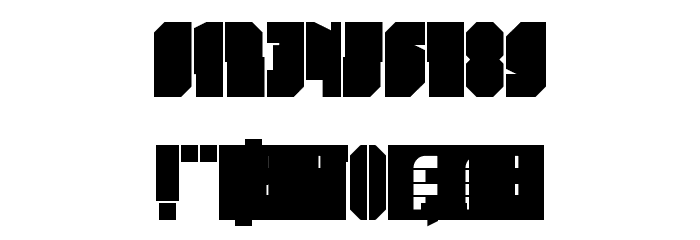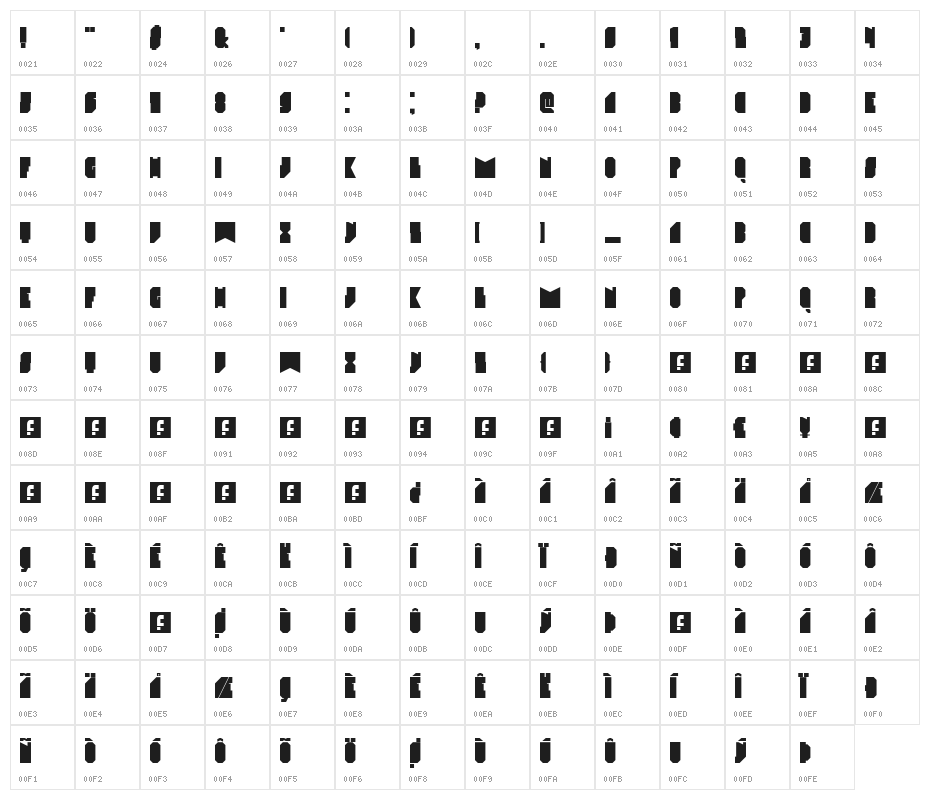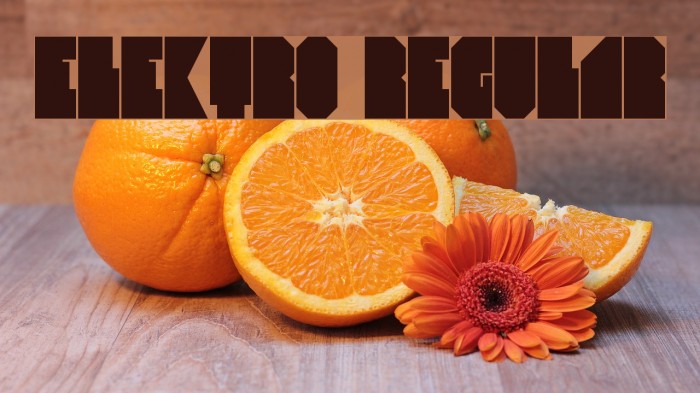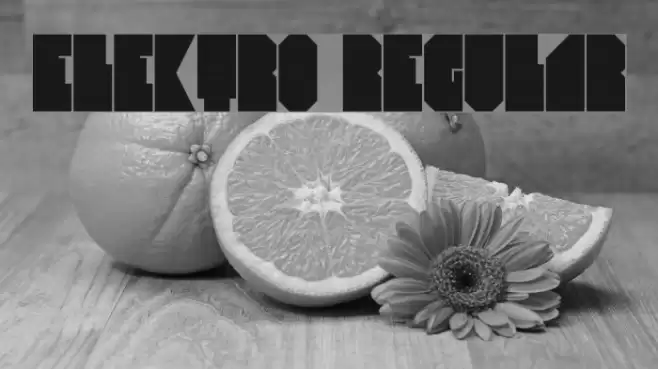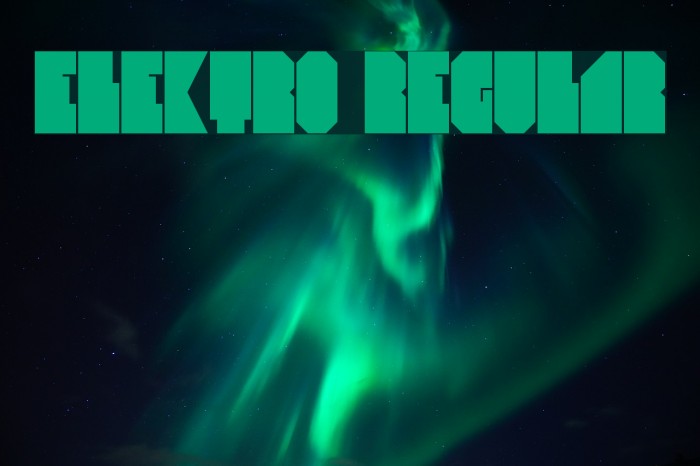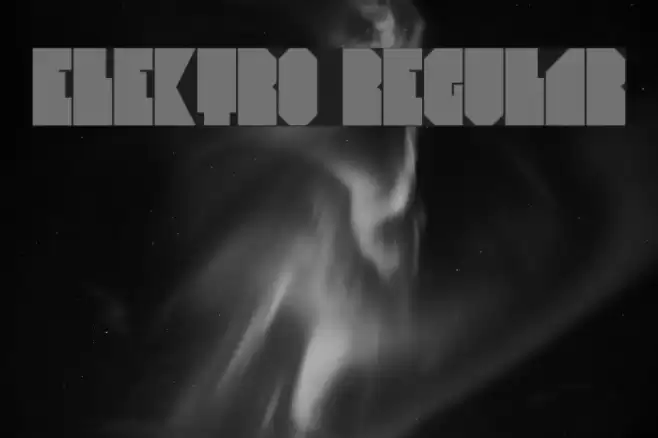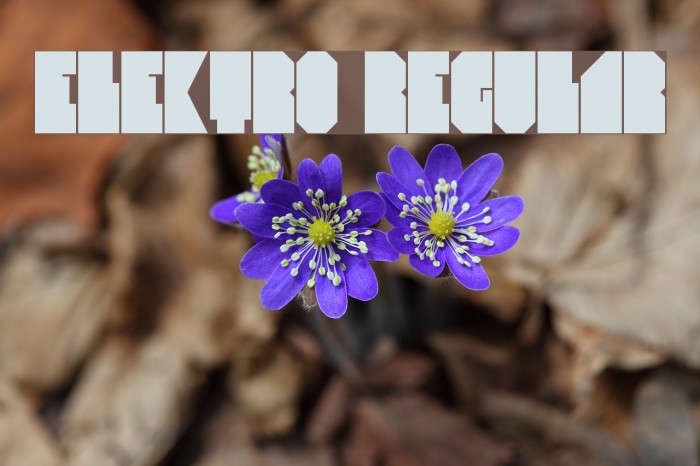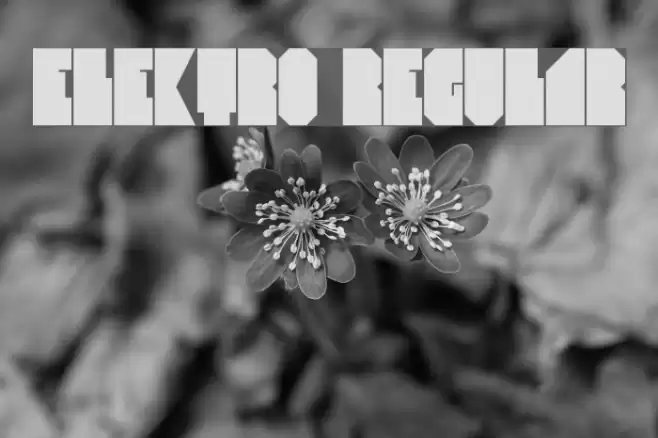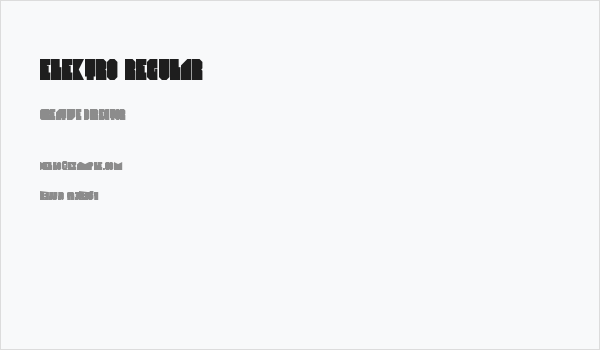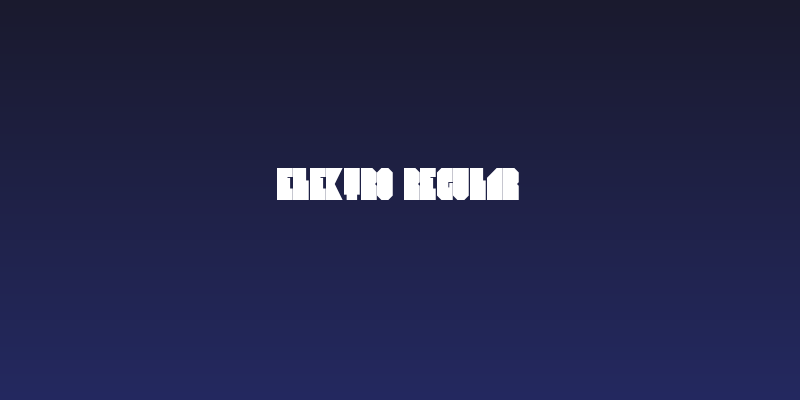
Elektro Regular Font
Elektro Regular Description
This font features a bold, geometric design with a futuristic and industrial feel. The characters are constructed with sharp angles and straight lines, creating a sense of precision and modernity. The uppercase and lowercase letters maintain a consistent style, emphasizing uniformity and structure. The numbers and special characters follow the same design principles, ensuring a cohesive appearance across all glyphs. This font's unique style makes it stand out, making it suitable for projects that require a strong visual impact.
| Proposed Projects | Ideal for branding, posters, album covers, and any project seeking a modern, edgy look. |